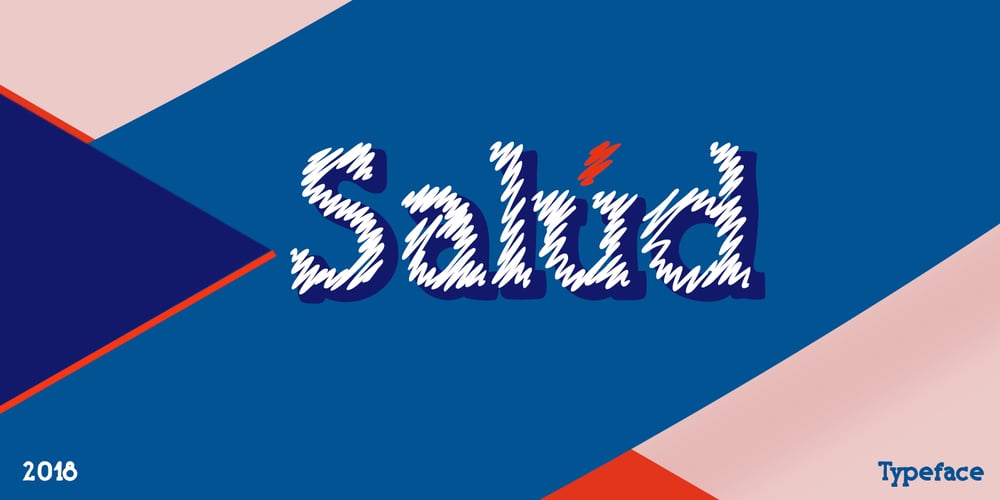
Salud
Salud font
Salud Font Family was designed by Alex Etewut and published by Etewut. Salud contains 8 styles and family package options. Salud is hand-drawn typeface based on light and bold slab serif. It has 8 font styles and supports extended latin. It may be used in presentation for a big company or in flyers for a birthday party. Other words it plays at both sides: can be formal and at the same time funny.